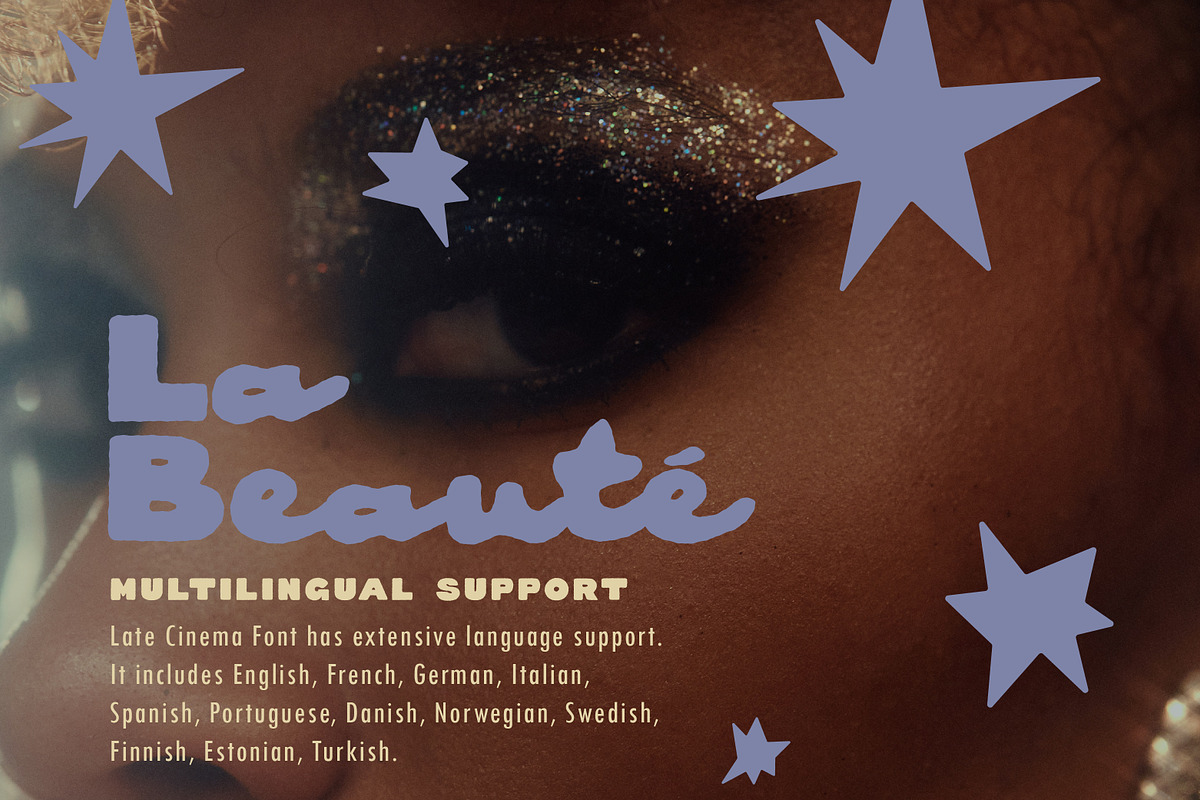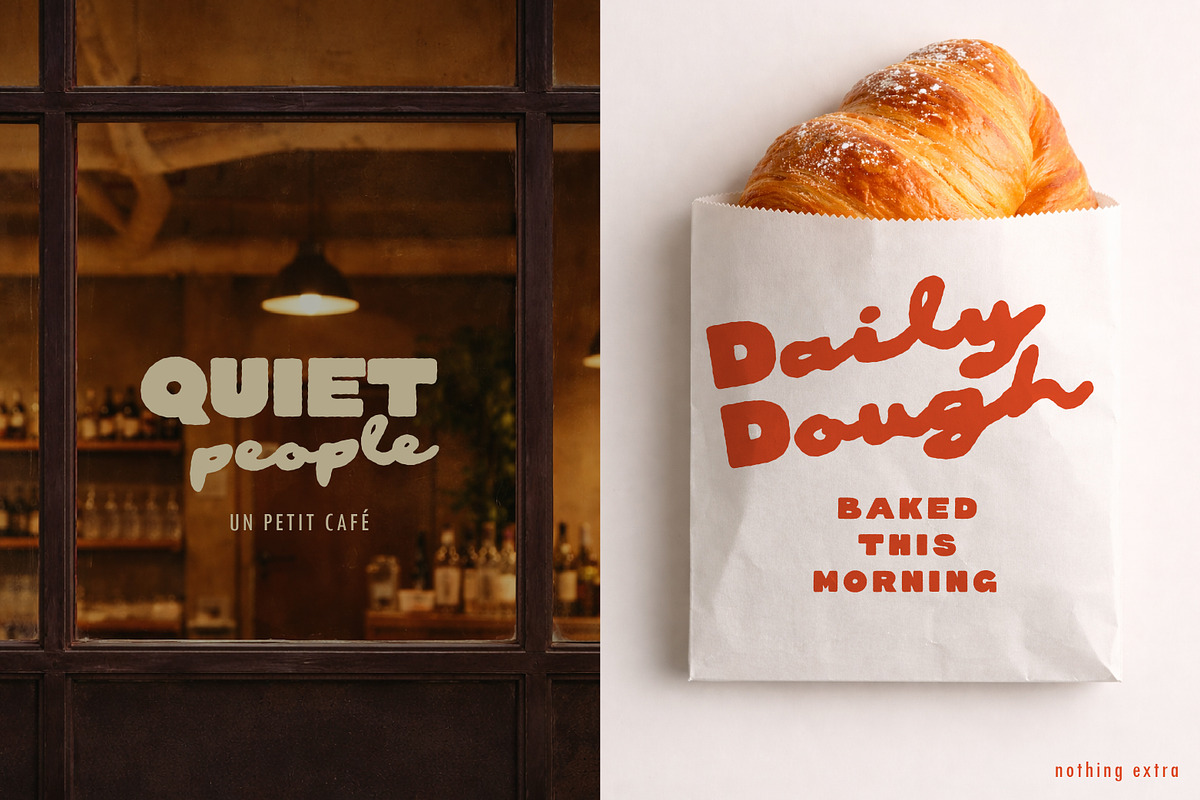
Late Cinema Soft Handwritten Script
Late Cinema is a versatile handwritten font that blends the boldness of a strong sans-serif with the warmth and personality of a handwritten script. Its uppercase letters are confident and solid, perfect for headlines, logos, and attention-grabbing titles, while the lowercase script adds intimacy, texture, and a natural rhythm that feels personal and approachable. Designed for projects that balance structure with human touch, Late Cinema works beautifully for branding, posters, packaging, and any design that needs both impact and subtle emotion.